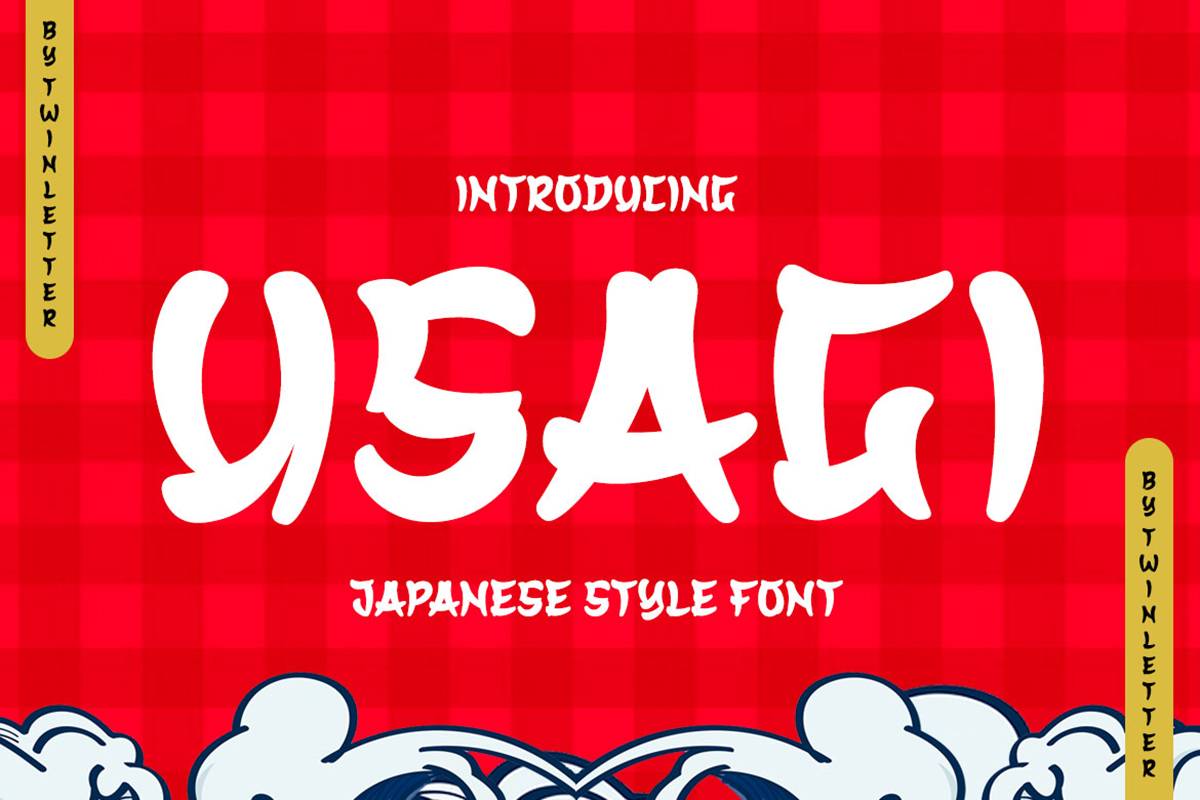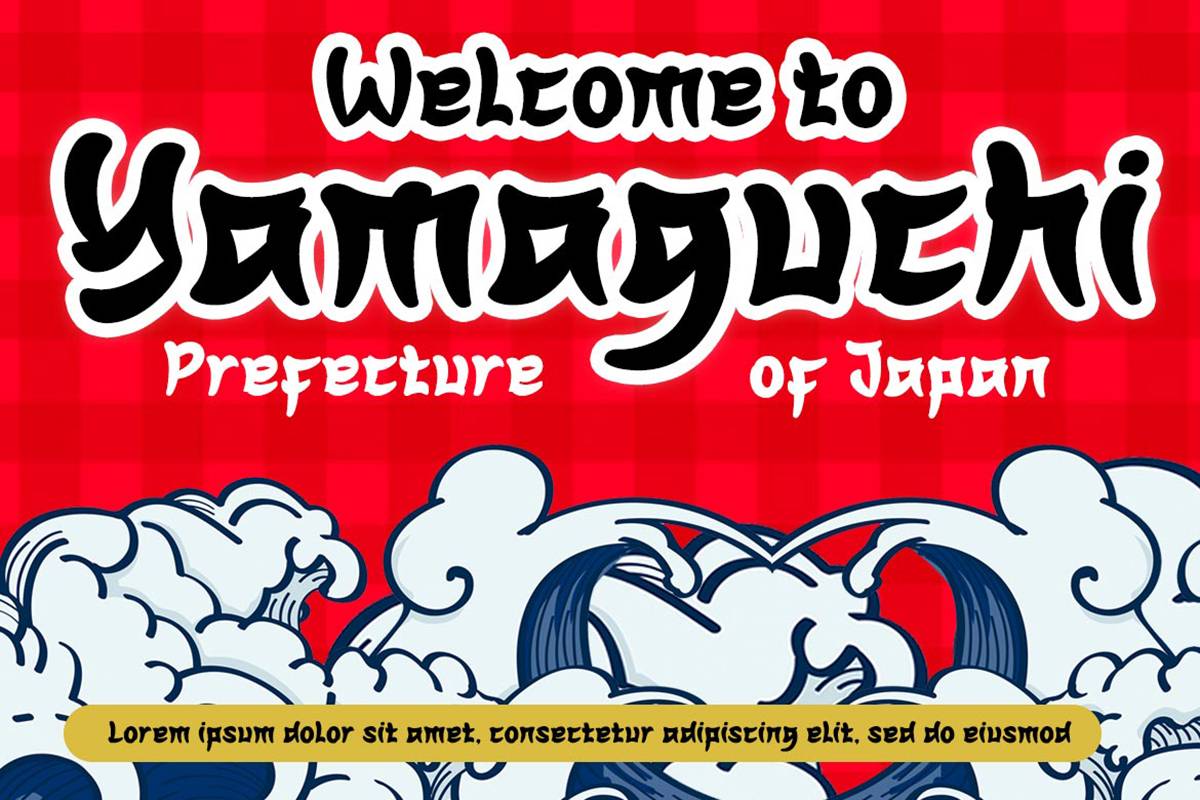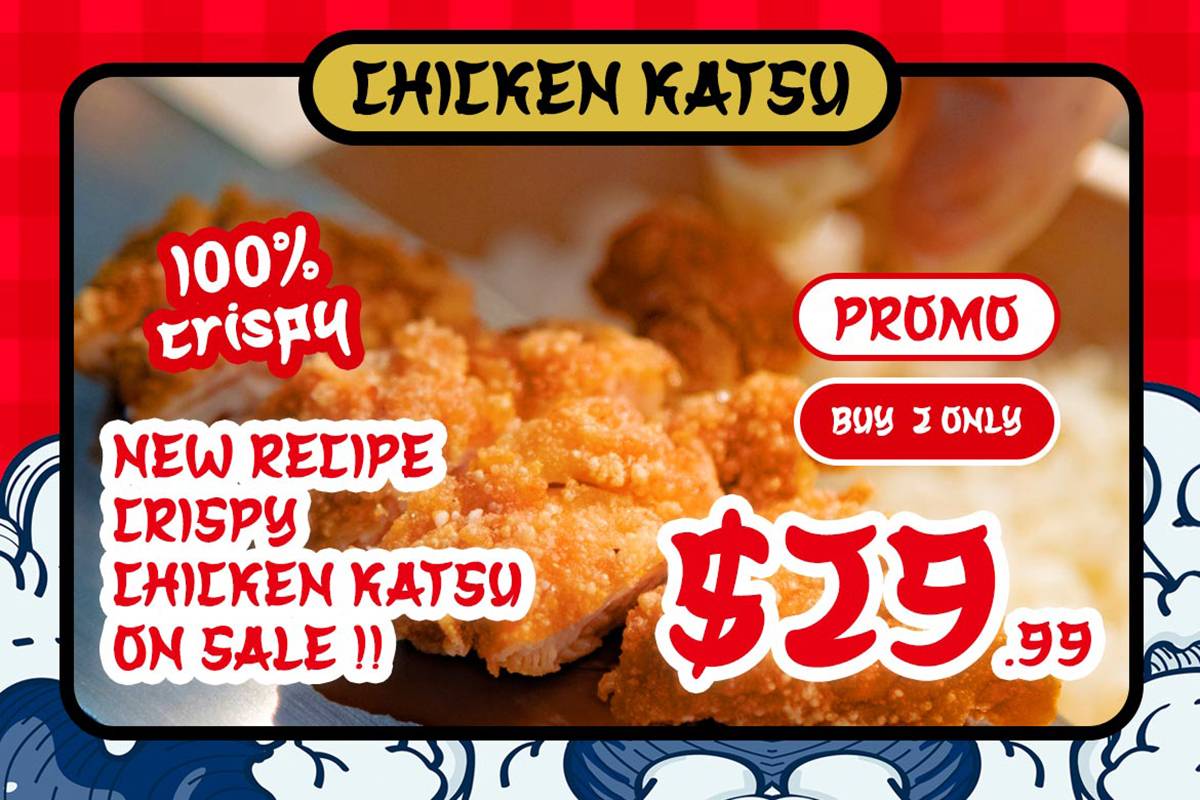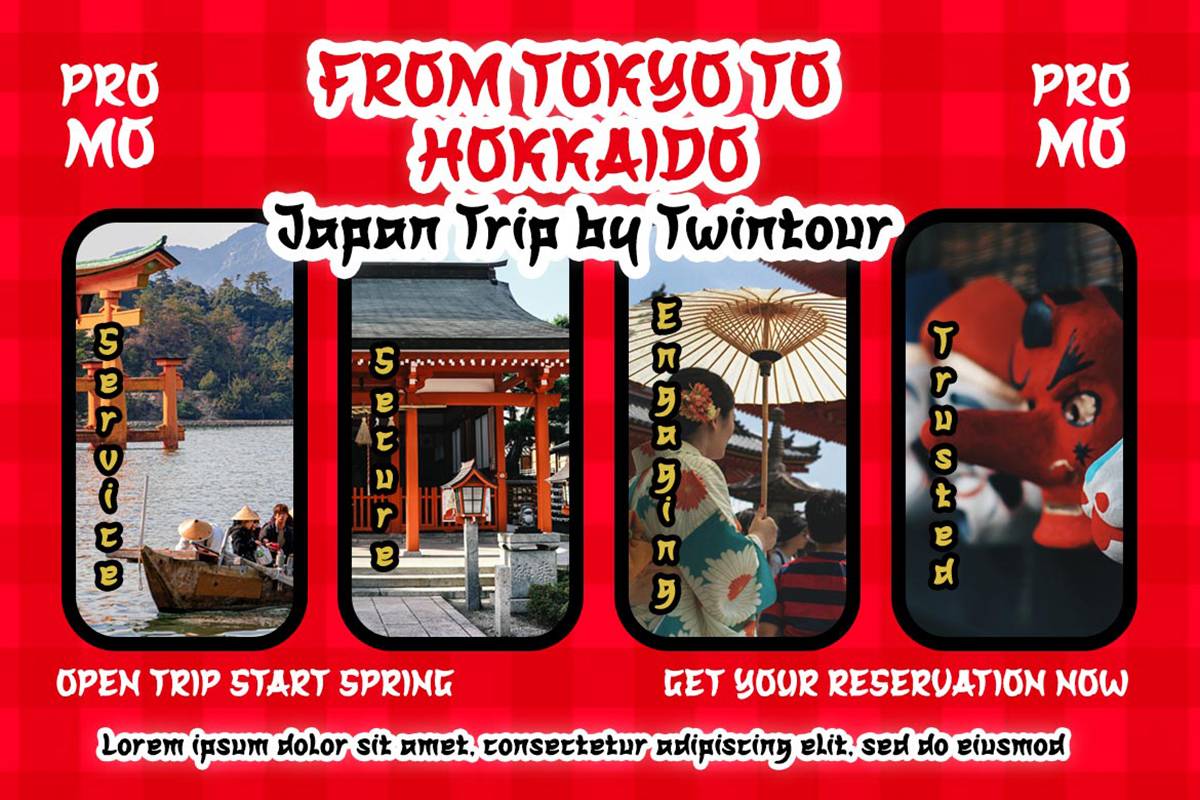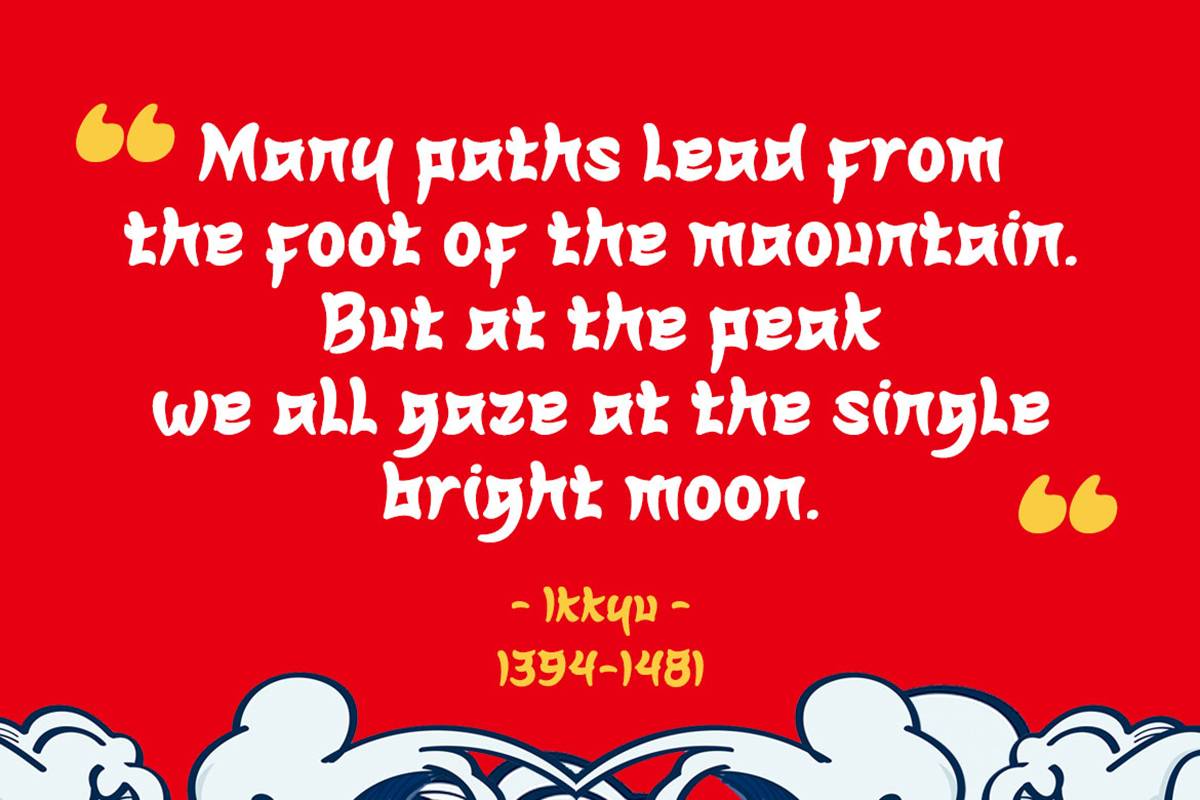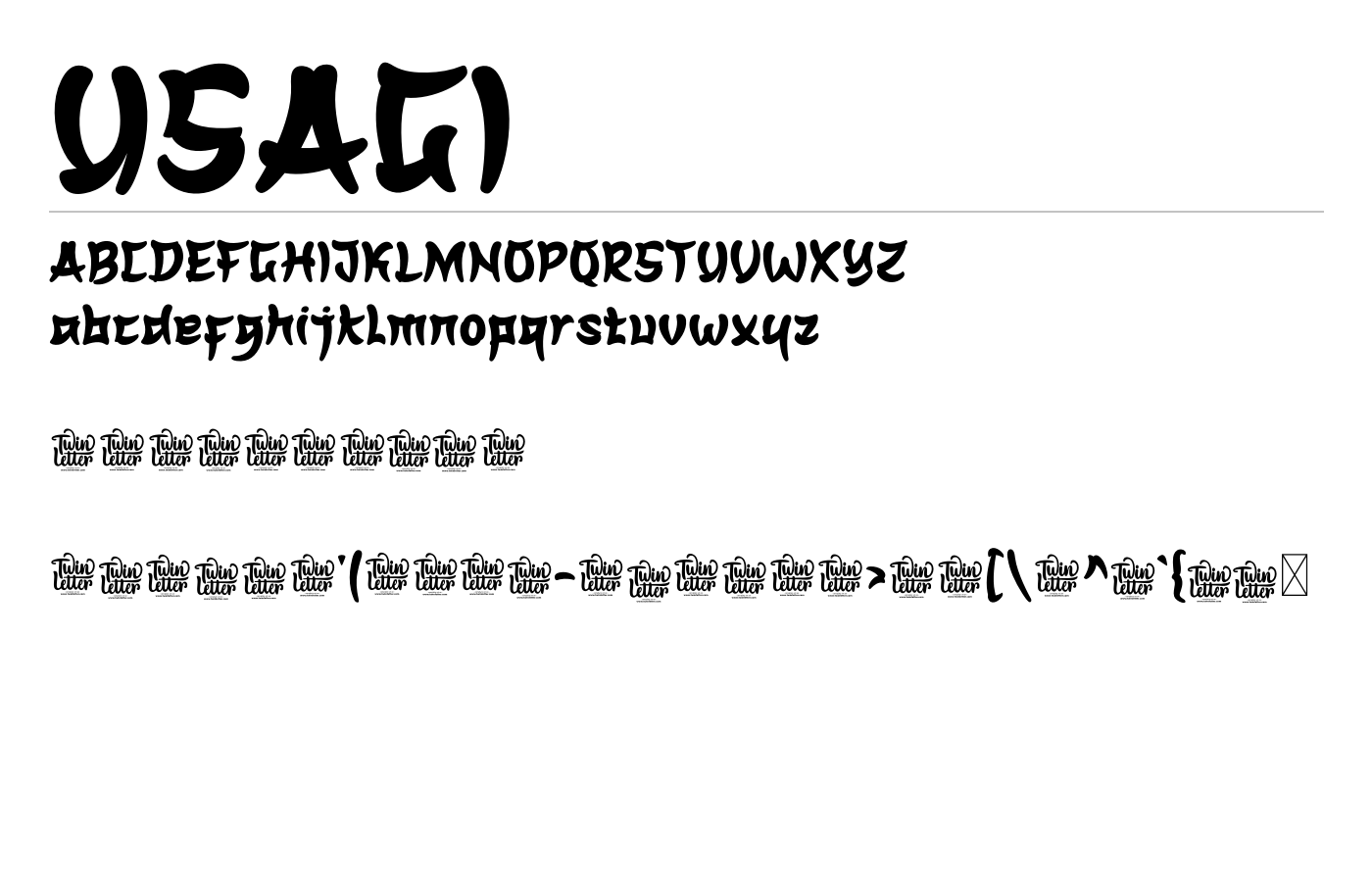
Usagi is a playful and bold handwritten font with a casual, brush-like style that gives it a lively, artistic feel. Its rounded strokes and slightly irregular letterforms make it perfect for creative projects, adding personality and warmth to logos, posters, and packaging. This font works well for brands seeking a fun, approachable, and handmade look.
Usagi Font
About Usagi Font